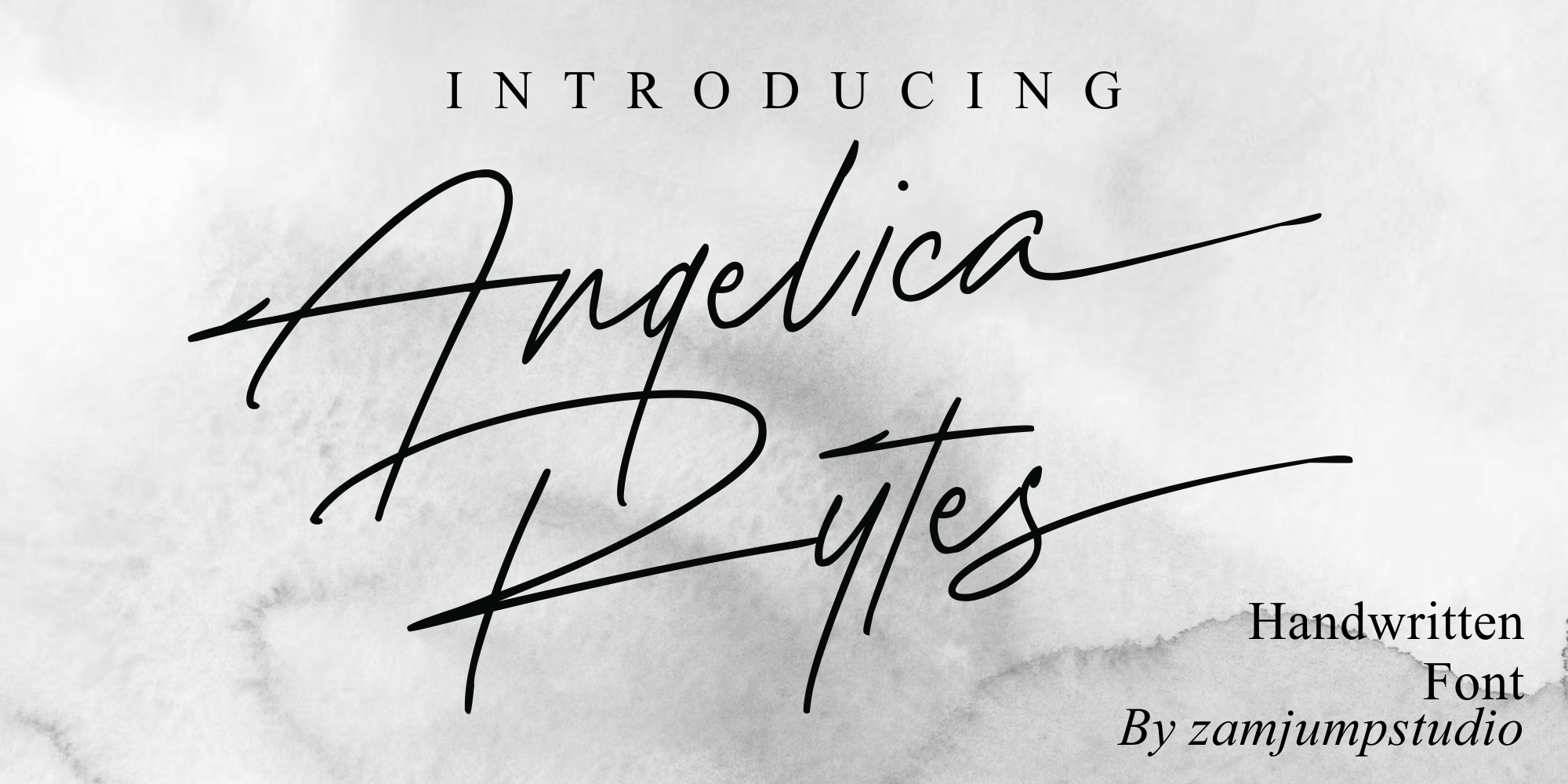
Angelica Rytes Font is an exquisitely elegant and charming script typeface, perfect for designs that aim for a personal, handcrafted, and sophisticated touch. Imagine it gracefully adorning wedding invitations, providing an authentic, bespoke look for a high-end boutique's logo, or adding a delicate, artistic flair to product labels for artisanal goods. Its flowing ligatures and distinctive swashes make it ideal for creative digital content, luxury branding, and any print materials where a sense of graceful elegance and artistic individuality is desired. From heartfelt greeting cards to exclusive marketing campaigns, this font infuses designs with unique character and memorable appeal.
What makes Angelica Rytes Font so exciting is its remarkable ability to blend the timeless beauty of traditional script with a modern, approachable sensibility. It often features fluid connections between letters, natural variations, and a hand-drawn feel that gives it an authentic and personal touch. This isn't just a generic script; it's a typeface that conveys emotion, warmth, and a sense of unique craftsmanship. It can make any text it's applied to feel more intimate and carefully curated, instantly elevating the perceived value and distinctive appeal of your design. This blend of elegance and personal charm is what truly sets Angelica Rytes Font apart.
The Angelica Rytes Font family typically focuses on delivering its distinct script style with precision and versatility. While it might not have the extensive range of weights found in a robust sans-serif, you can usually expect to find a finely tuned Regular weight, often accompanied by a variety of stylistic alternates, swashes, and ligatures. These additional character sets are crucial for unlocking the font's full creative potential, allowing designers to customize letter connections and add decorative flourishes, ensuring that the font maintains its graceful and unique aesthetic across various applications.